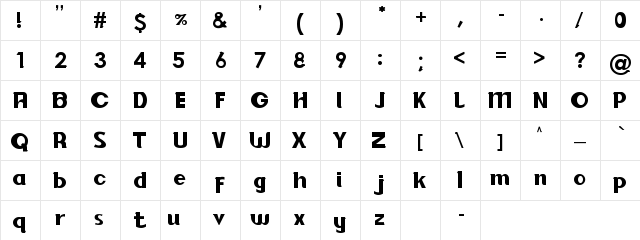
Baloon Regular
| Designer | Lettersiro 2018 |
Design Context for Baloon Typeface
Baloon offers clean, dependable letterforms without strong stylistic allegiance, making it a practical choice for designers who need flexibility.